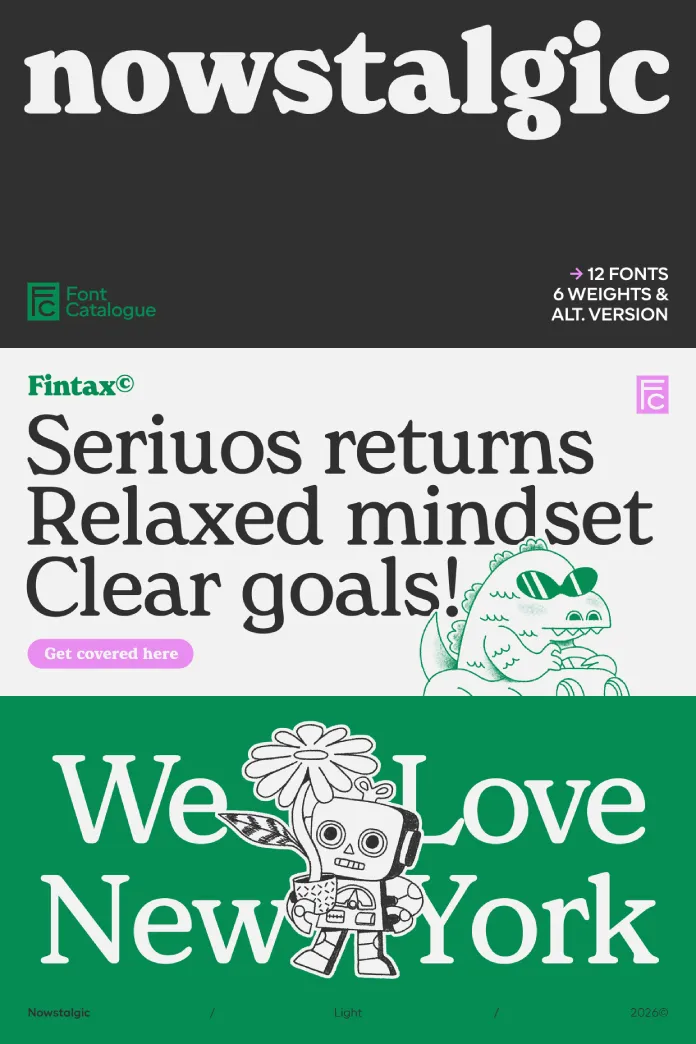
Nowstalgic Font Family Redefines What Warmth Looks Like in Contemporary Type Design
Typography has a memory problem. Not in the archival sense — but in the emotional one. Too many modern typefaces feel clean to the point of coldness. They optimize for neutrality and end up feeling like nothing. The Nowstalgic font family by Font Catalogue is a direct answer to that deficit. It carries warmth without being decorative, references history without being retro, and delivers functional clarity without sacrificing personality. That combination is rarer than it sounds.
Released by Font Catalogue and designed by Luciano Vergara, Jorge Cisterna, Daniel Hernández, and Tania Chacana, Nowstalgic is built on the foundation of Windsor — a typeface that shaped the visual culture of the 1970s and never fully left. You’ve seen Windsor in the Whole Earth Catalog. You’ve seen it in Woody Allen’s film credits. It carries cultural weight. Nowstalgic inherits that weight, refines it, and brings it into a typographic system that works just as well on a product label as on a digital interface.
This is a typeface worth studying closely. Here’s why it matters right now.
What Makes the Nowstalgic Font Different From Other Contemporary Serif Typefaces?
The contemporary serif category is crowded. Freight Text, Canela, Tiempos, Portrait — all occupy broadly similar territory. Most of them solve the warmth problem through calligraphic influence, optical corrections, and carefully modulated stroke contrast. Nowstalgic does something different. It doesn’t just borrow traditional serif principles — it layers them over a soft geometric base with a very specific emotional target.
Call it calibrated familiarity: the feeling that you’ve encountered this typeface before, even if you haven’t. That recognition isn’t accidental. The design team built it intentionally by drawing on Windsor’s cultural legacy while rebuilding the system from scratch. The result is a typeface that feels settled and confident without feeling dated.
The soft geometry is one of the first things you notice. Curves carry a slight organic give. The serifs themselves are rounded and approachable rather than sharp and formal. Instead of the rigid bracket geometry of classical serifs, Nowstalgic’s terminals resolve with a warmth that makes text feel alive on the page. This is a defining trait of the Nowstalgic design language, and it’s what separates it from serif typefaces that prioritize classical authority over human connection.
Typographic Color and Why It Matters for Branding
Designers often talk about typographic color — the overall gray value a block of text creates on a page. Most readers never consciously notice it. But they feel it. Dense, high-contrast type feels tense. Light, open type feels airy. Neither is inherently better; both are contextual choices. Nowstalgic achieves a consistent typographic color across all its weights and sizes through what its designers describe as controlled contrast. Stroke variation is present but restrained. This means text set in Nowstalgic looks cohesive whether you’re reading a headline at 72pt or body copy at 10pt.
For branding applications, this consistency is enormously useful. A brand using Nowstalgic can move from packaging to digital to print without the typeface behaving differently in each context. That adaptability is rare in this category, and it’s one of the clearest reasons to take this family seriously.
The Windsor Legacy: Understanding the Design DNA of Nowstalgic
To understand Nowstalgic, you need to understand Windsor. Designed by Eleisha Pechey and released in the 1900s, Windsor was a robust, warm typeface with unusual proportions — condensed but never tight, with open counters and a slightly folksy character. It became a staple of American graphic design through the 1960s and 1970s. The Whole Earth Catalog used it as its defining typeface. Woody Allen used it in film credits so consistently that it became inseparable from his visual identity.
Windsor had personality. It had texture. But it wasn’t built for the demands of contemporary typography — variable environments, digital rendering, OpenType features, tight branding systems. It was a typeface of its era.
Nowstalgic treats Windsor as a feeling rather than a template. The design team preserved what made Windsor emotionally distinctive — the warmth, the approachability, the subtle populism — and rebuilt everything else. The proportions are recalibrated. The spacing is tighter and more intentional. The glyph system is expanded with alternates that add expressive range. The result is a typeface that carries Windsor’s warmth but operates at a fully contemporary level of typographic sophistication.
How Nowstalgic Handles the Windsor-to-Contemporary Translation
The translation problem in type revival is well-documented: you can copy a historical typeface, but copying isn’t refinement. Nowstalgic avoids pastiche by updating Windsor’s character with formal decisions rooted in current typographic thinking. Open apertures are more generous. Terminals are deliberately rounded rather than cut. The overall rhythm is more even, which makes Nowstalgic far more reliable at text sizes than Windsor ever was.